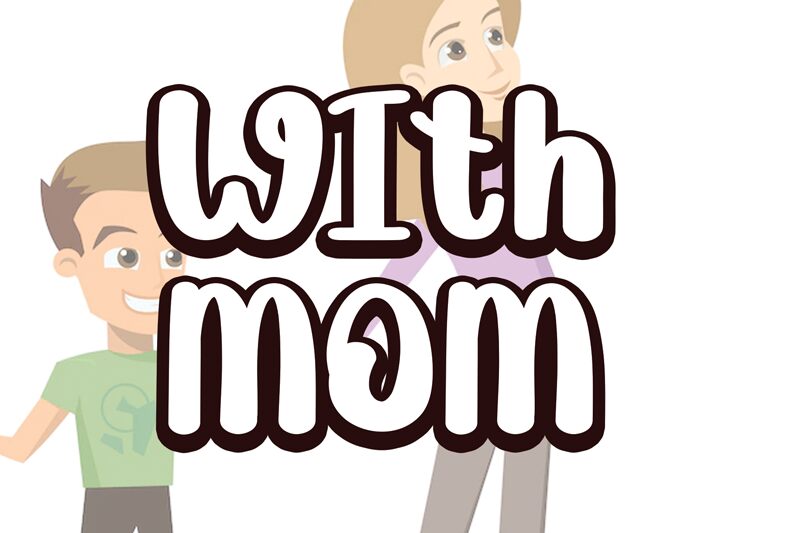
With Mom
With Mom is a delightful display font that exudes a whimsical, cartoon-like charm. Designed by Andi Moz, this bold, playful typeface boasts a distinctive hand-drawn aesthetic, with organic curves and quirky character shapes that lend it a warm, personable quality. The font's strong, confident strokes and varied letter forms create a dynamic, expressive visual rhythm, making it an ideal choice for a variety of design applications, from children's storybooks and greeting cards to branding and packaging.
Its versatility and visual appeal make With Mom a standout option for designers seeking to inject a touch of playfulness and personality into their projects. The font's unique personality and striking visual presence can captivate audiences and elevate the overall design aesthetic.